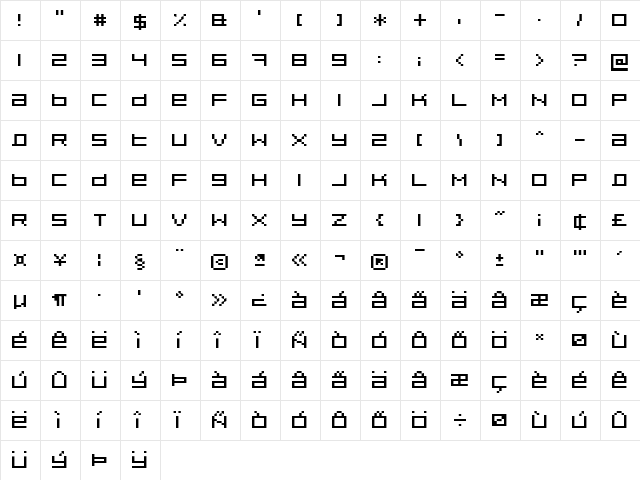
Pixeldust Regular
| Designer | Andreas Nylin |
Design Context for Pixeldust Typeface
Pixeldust is rooted in pixel-grid construction, making it a natural fit for game UI, retro computing aesthetics, and digital nostalgia projects.
A natural choice for retro game titles, chiptune music branding, 8-bit UI, and digital nostalgia projects.